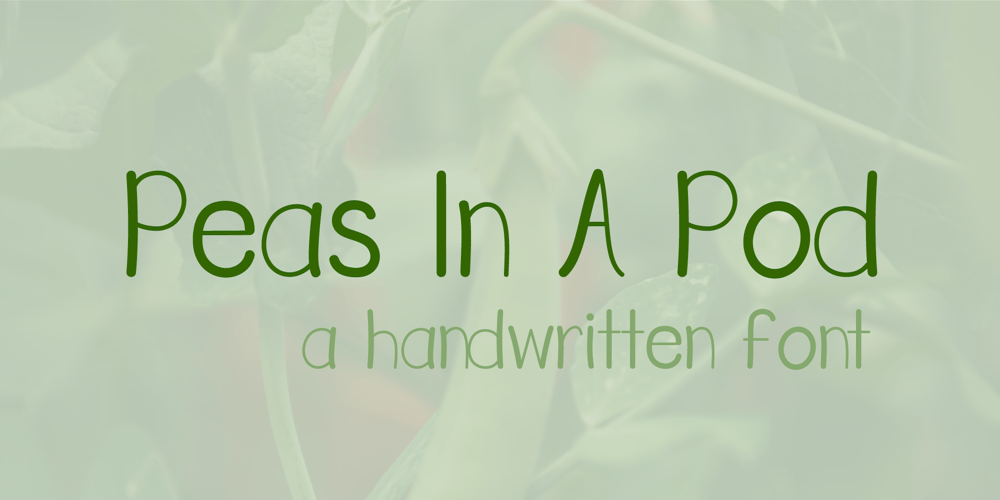
Peas In A Pod Font Family was designed by Jess J and published by Type Avenue. Peas In A Pod contains 1 styles and family package options. Peas In A Pod may be a cute font, but this type has a plethora of uses. Its use of thick and thin lines makes it a wonderful display font or an easy-to-read body font.